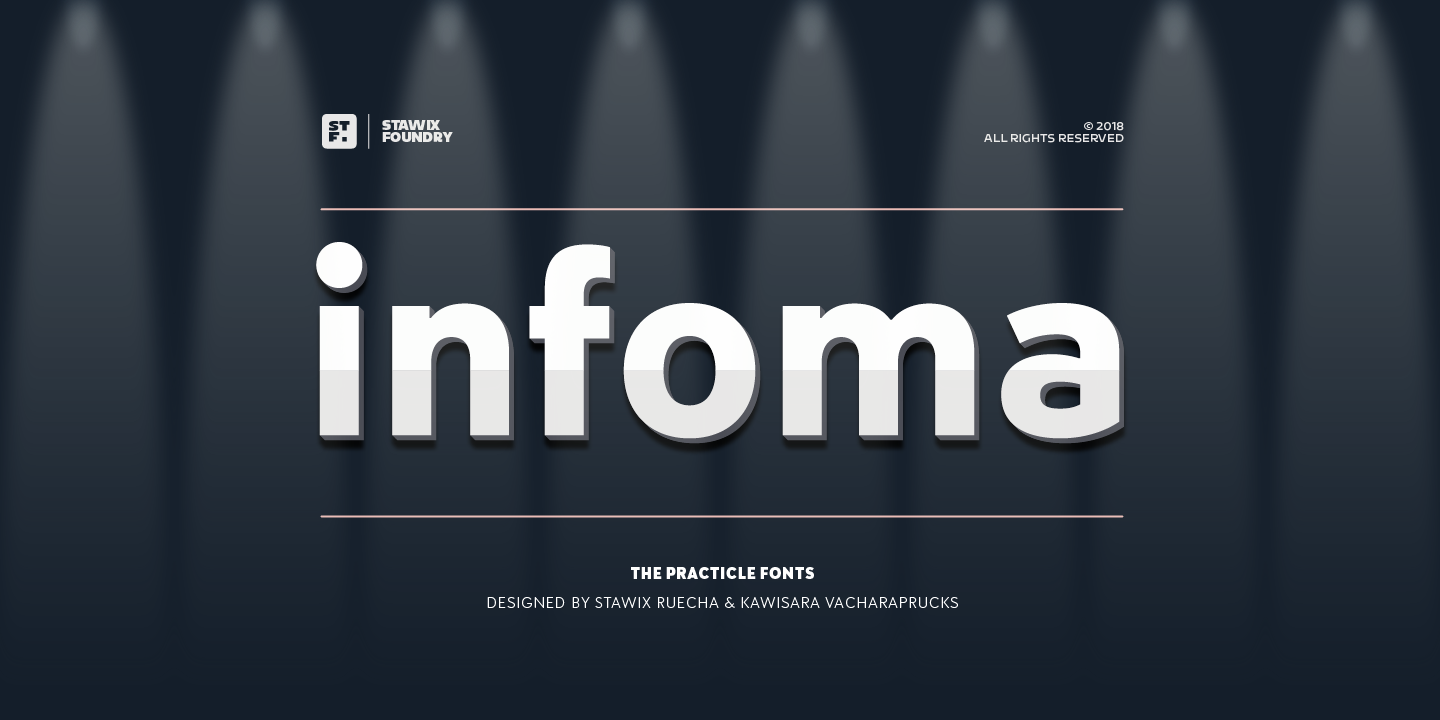
This modern sans-serif font is perfect for information technology branding, data analytics platforms, digital documentation systems, tech startup logos, information management software, data visualization interfaces, knowledge base designs, and informational design projects that prioritize clarity and systematic organization.
Infoma Font is exciting because it embodies information clarity with its precise letterforms that organize data like perfectly structured databases. The font delivers systematic sophistication while maintaining information-grade readability that helps users process complex data efficiently and accurately.
The Infoma Font family includes thin, light, regular, medium, and bold weights with matching italics, plus data symbols and information icons, providing designers with comprehensive tools for creating systematic typography that organizes information beautifully.
Ready to systematize your information design? Infoma Font Free Download offers designers structured letterforms that process with data clarity and informational sophistication. This efficient typeface combines information aesthetics with professional functionality, making it ideal for tech companies, data organizations, and information-focused campaigns. Whether you're designing data dashboard interfaces, information management systems, or tech documentation materials, this font delivers systematic appeal. The precisely engineered characters feature data-driven structure while maintaining excellent readability across information applications. Perfect for businesses in information technology, data analytics, knowledge management, and digital documentation that celebrate organized thinking and systematic communication. The font's informational construction creates memorable brand recognition that resonates with data professionals worldwide. Each letter showcases deliberate organization that mirrors the structured beauty of well-organized information systems. Download today and systematize success in your creative projects with this premium sans-serif font that transforms ordinary text into extraordinary expressions of information clarity and the organized precision of Infoma Font Free Download efficiency.